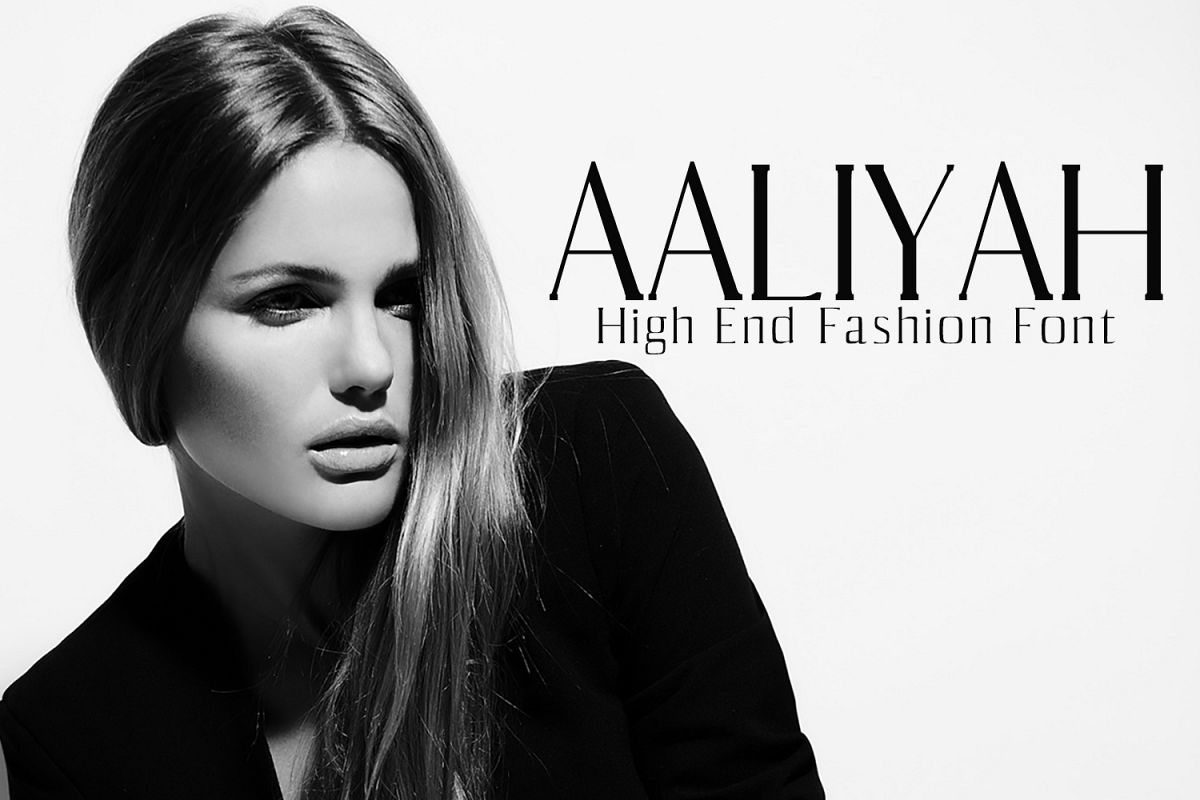
Aaliyah Serif Typeface
Aaliyah Ligh
Aaliyah Regular
Aaliyah Black
Aaliyah Thin
Aaliyah Bold
Aaliyah Serif font is a set of 5 weights font family and it is good for making creative displays and it has unique and modern serif layout. It Suits best for modern / clean designs, logos, headlines, banners and templates etc.It looks gorgeous in all caps with a wide-set spacing if you want to try a classy look, or beautiful on its own in capital and lowercase letters for something completely timeless.Features
• Regular, Light, Thin, Black, Bold
Aaliyah Font Features:
• Uppercase Multilingual Letters
• Lowercase Multilingual Letters
• Alternative